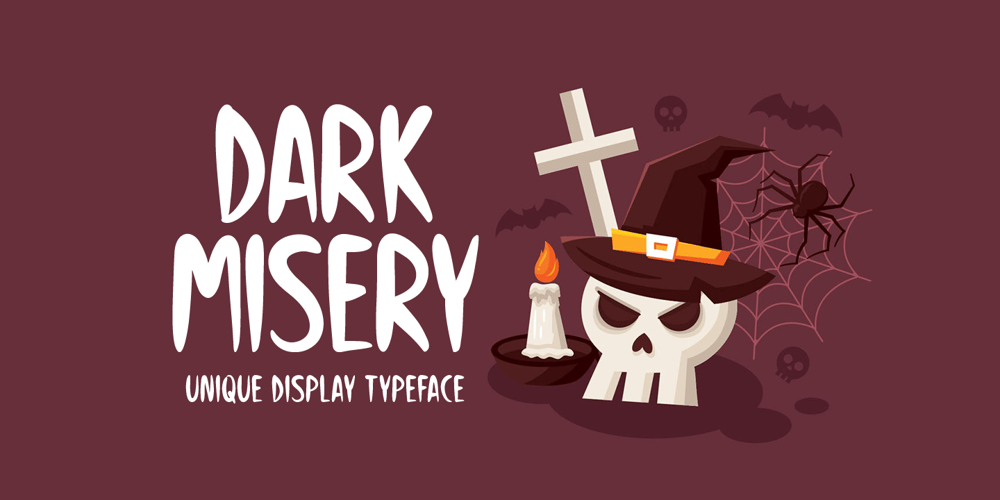
Dark Misery Font Family was designed by Md Shohail Bhuian and published by Seemly Fonts. Dark Misery contains 1 styles and family package options. Dark Misery is a simple yet spooky display font. This original look will appeal to a wide range of crafty ideas, from letterheads and titles to stationery.